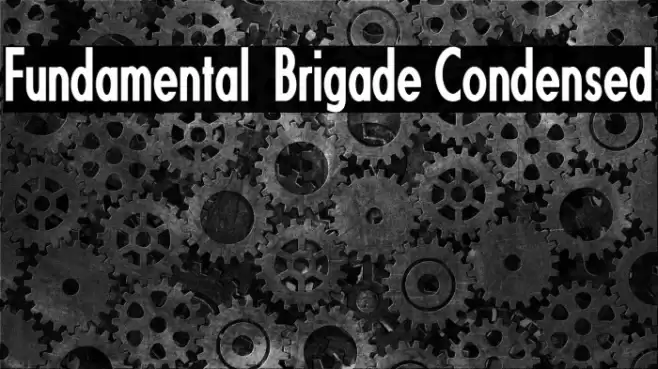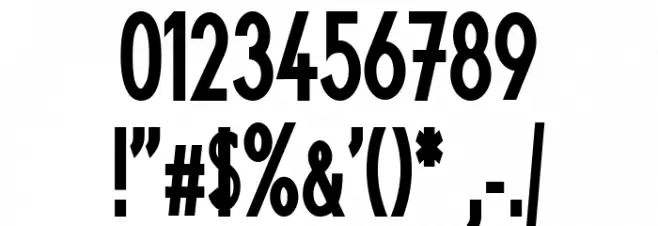
Fundamental Brigade Condensed Font
Fundamental Brigade Condensed Description
This font features a bold and condensed style, characterized by its strong, impactful presence. The uppercase letters are tall and commanding, while the lowercase letters maintain a consistent height that complements the uppercase. The numerals are clear and easily distinguishable, making them suitable for various applications. Special characters are well-defined, adding versatility to the font's usage. The overall design is modern and clean, with a focus on readability and visual impact. The condensed width allows for efficient use of space, making it ideal for headlines and titles where space is limited.
A bold, condensed font with a modern and impactful style from Uncategorized fonts.